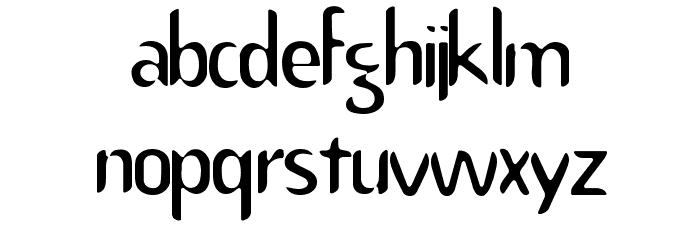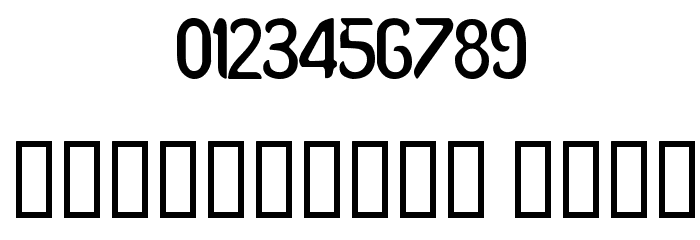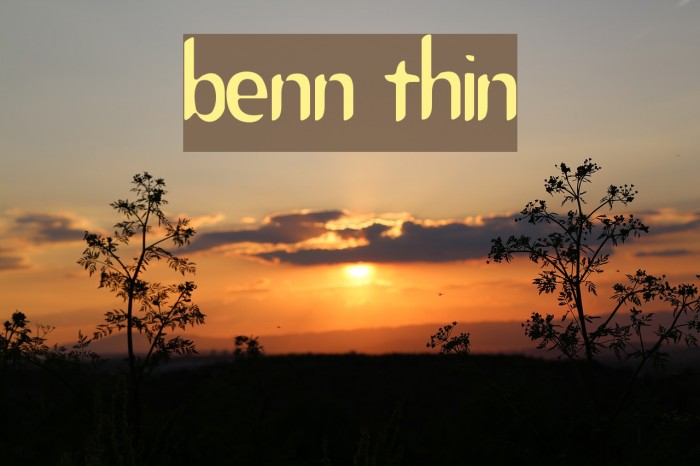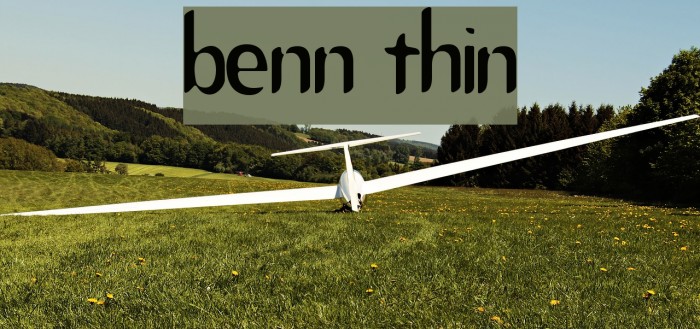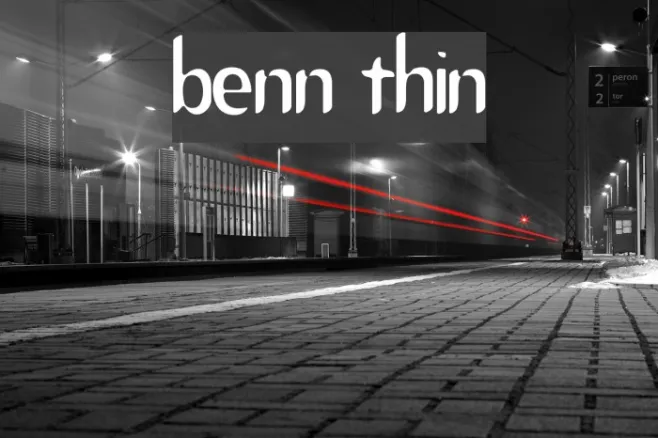
Benny Thin Font
This font features a unique and playful design with a modern twist. The characters are slightly elongated with rounded edges, giving them a friendly and approachable appearance. The lowercase letters have a consistent height, while the uppercase letters maintain a uniform width, creating a harmonious balance. The numerals are distinct and easy to read, with a slight curve that adds to the overall aesthetic. The special characters are well-integrated, maintaining the font's cohesive style. This font is versatile, suitable for various design projects that require a touch of creativity and modernity.
A playful, modern font with rounded edges and consistent character height.
- Proposed Projects: Ideal for children's books, playful branding, modern websites, and creative posters.